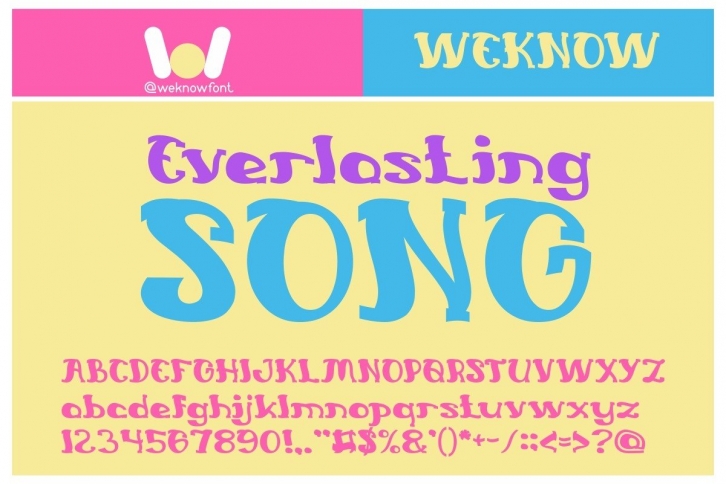
Everlasting Song is a whimsical and wavy display font. It has a modern and chic style and it will undoubtedly immerse your designs into a magical world.Â